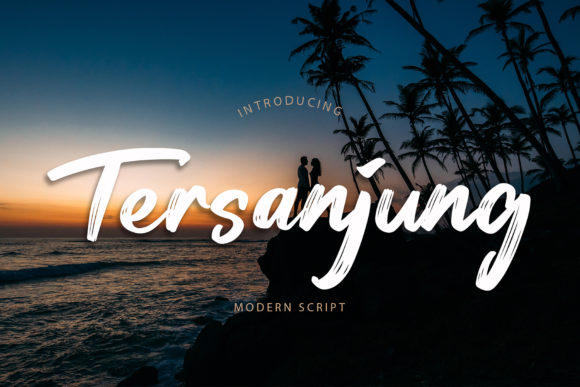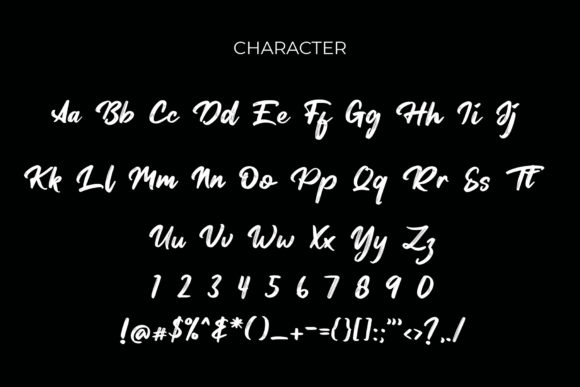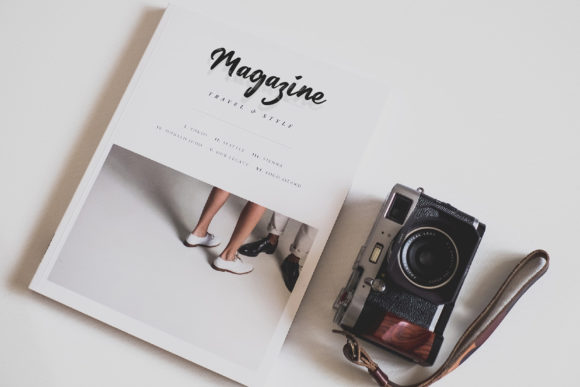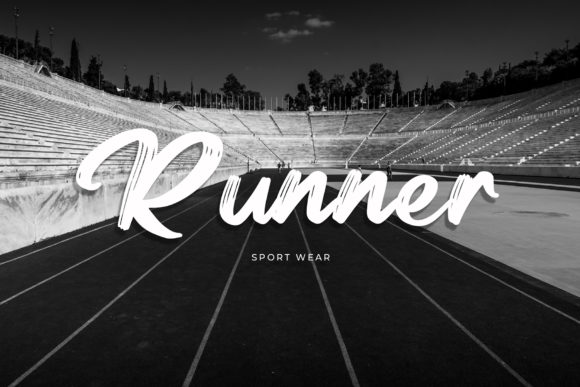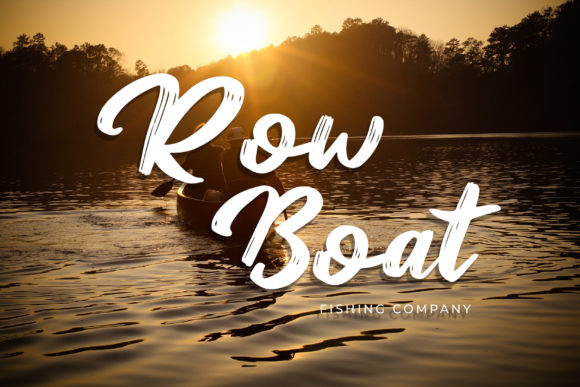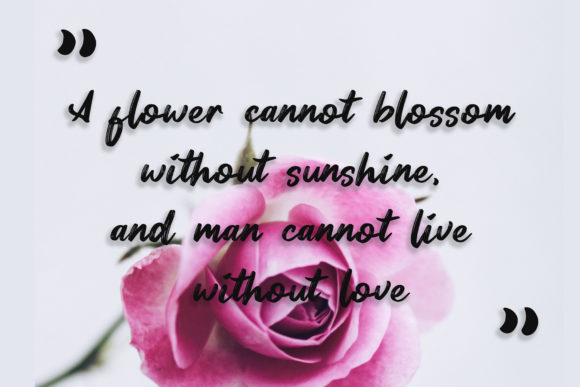
Tersanjung Font
About Tersanjung Font
Tersanjung is a casual, fun handwritten font, created by using a brush pen. This font is the perfect fit for all of your logos, branding, social media, and crafty DIY projects.